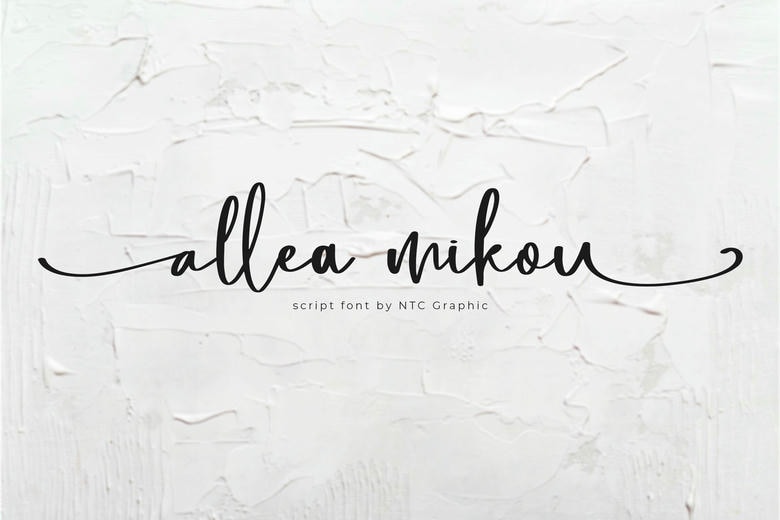
Allea Mikou Font
Allea Mikou is a sensual and beautiful script font that was written using hand brush style, with very carefully crafted characters that sets up a personality in your designs. Whether it’s logos, invitations or branding concept, Allea Mikou steps in to make your work more appealing, creative and eye catchy.
Allea Mikou Handwritten Script Font